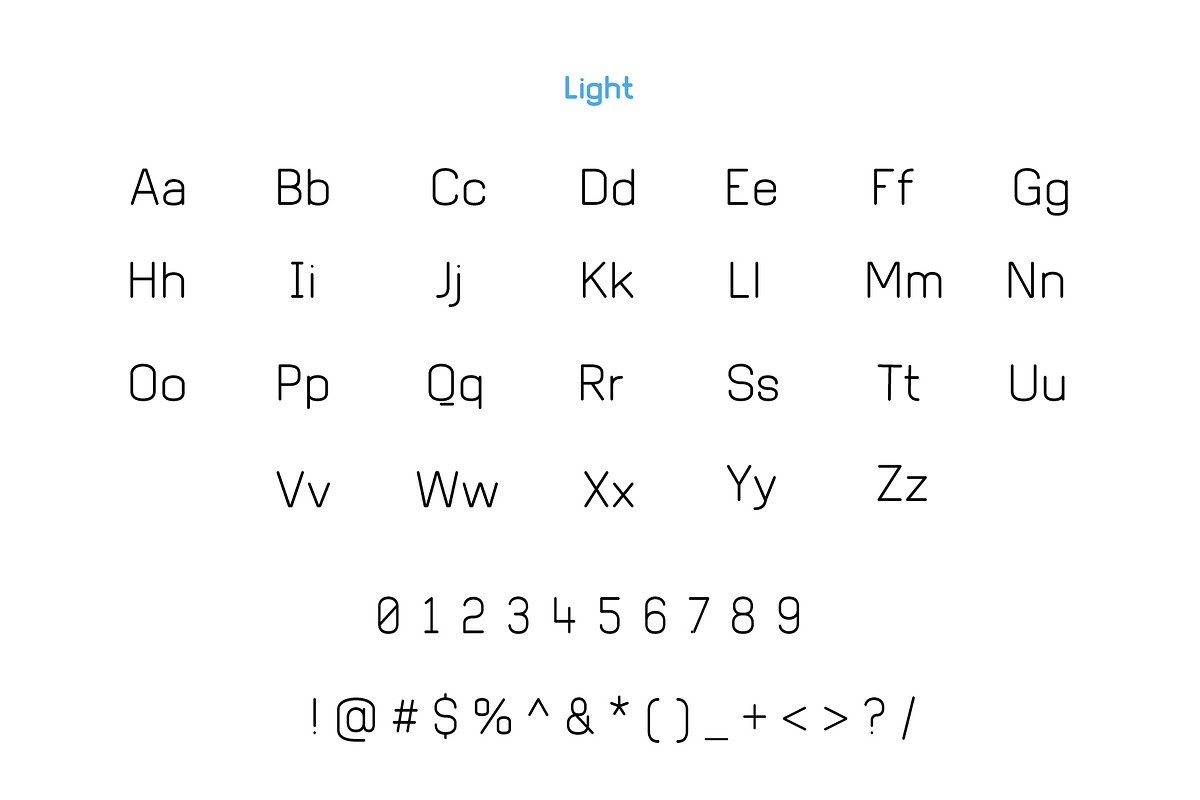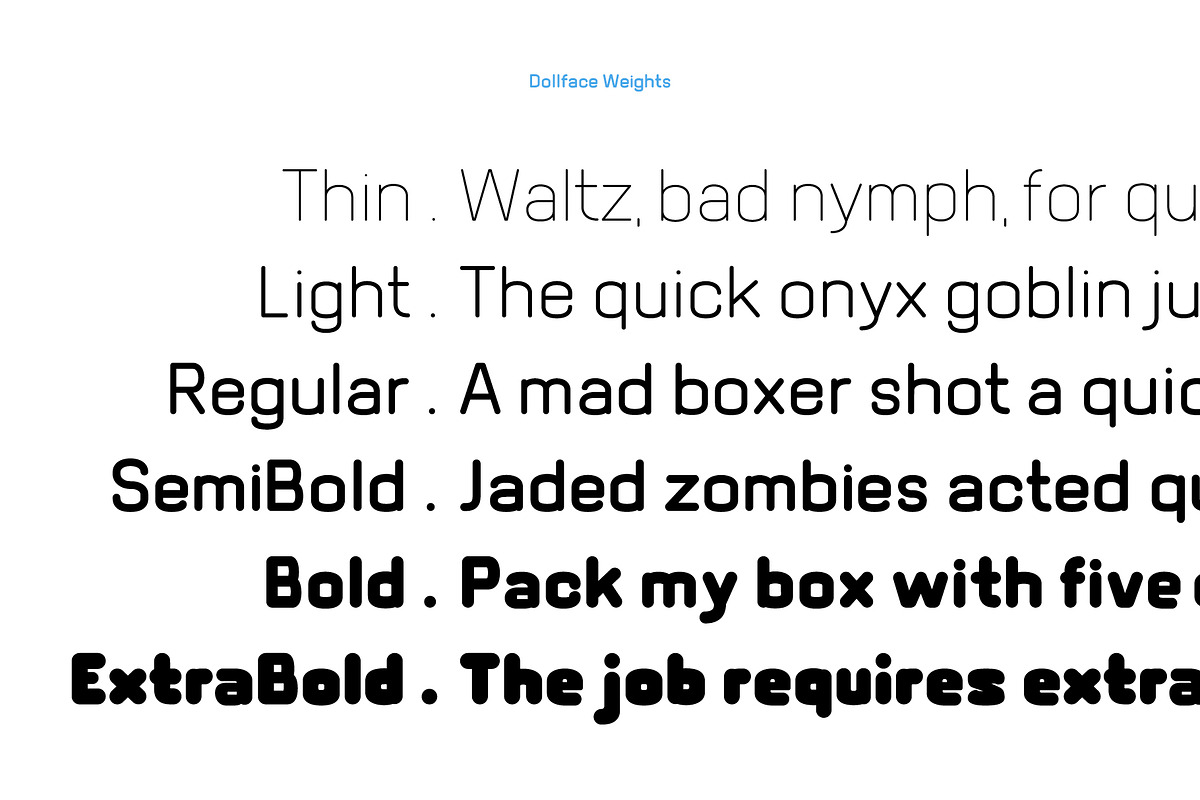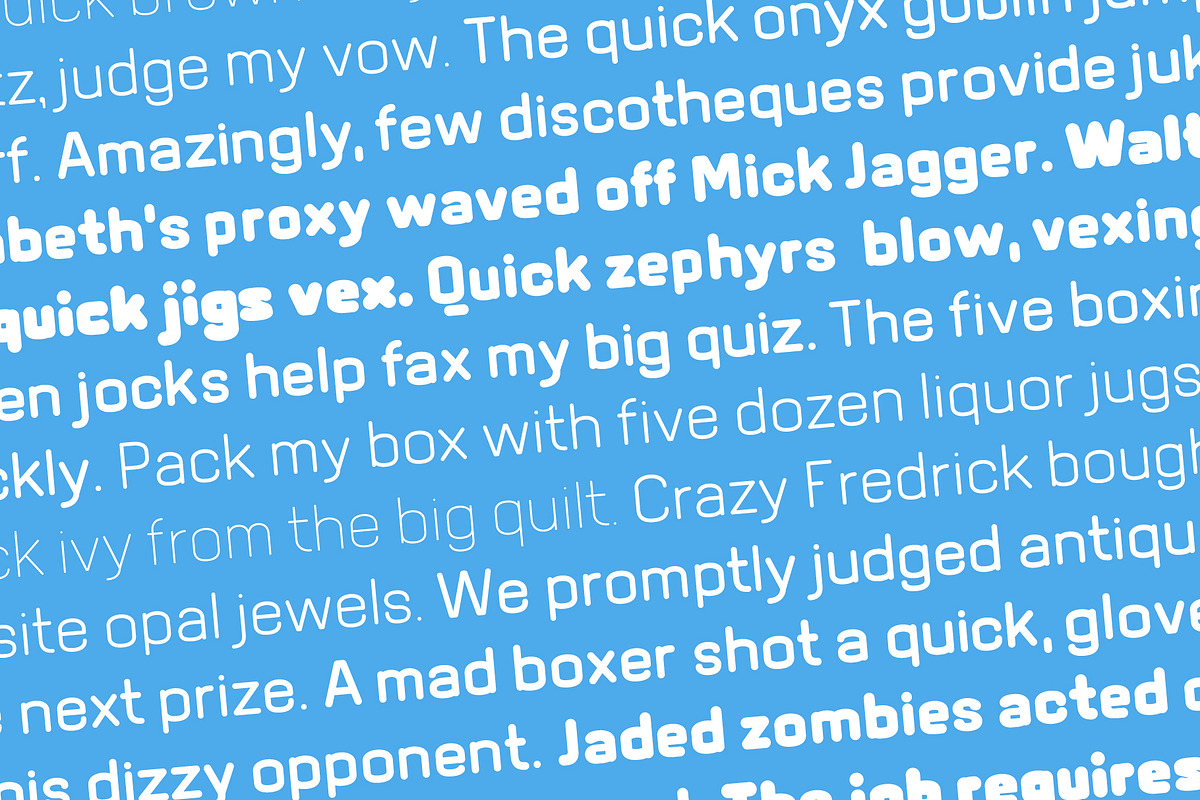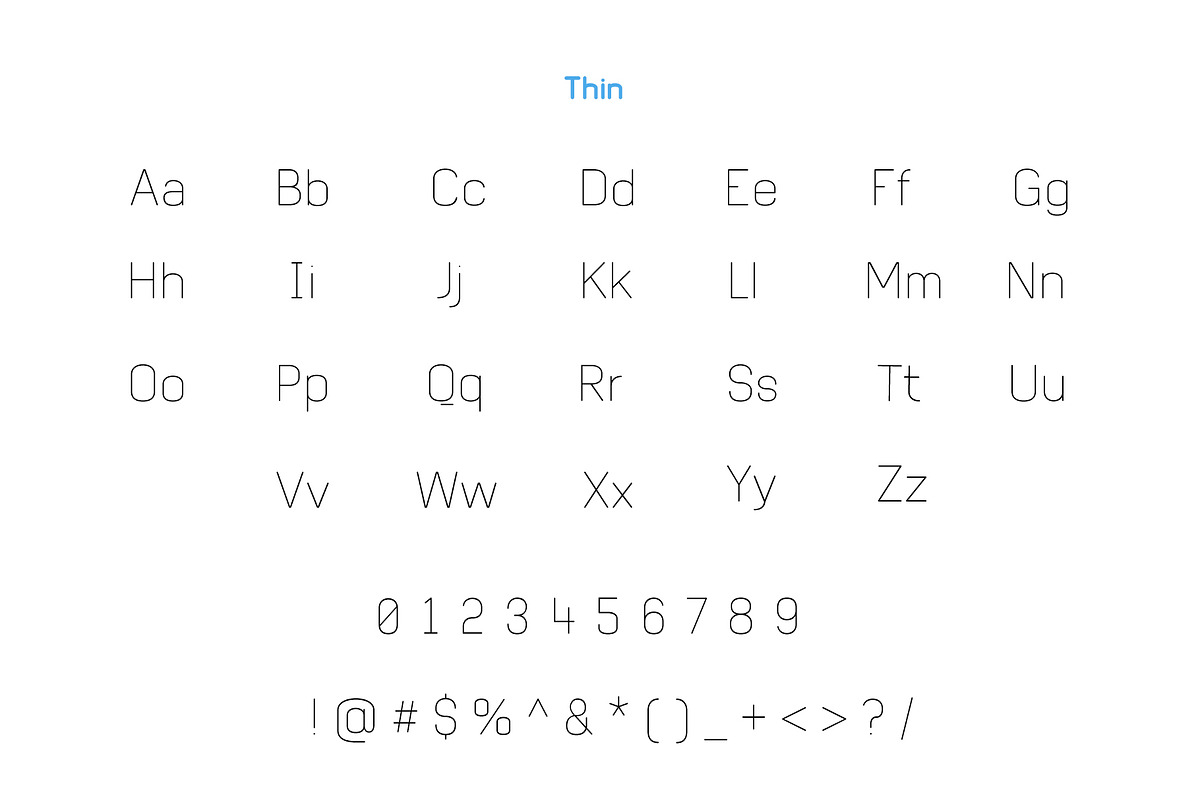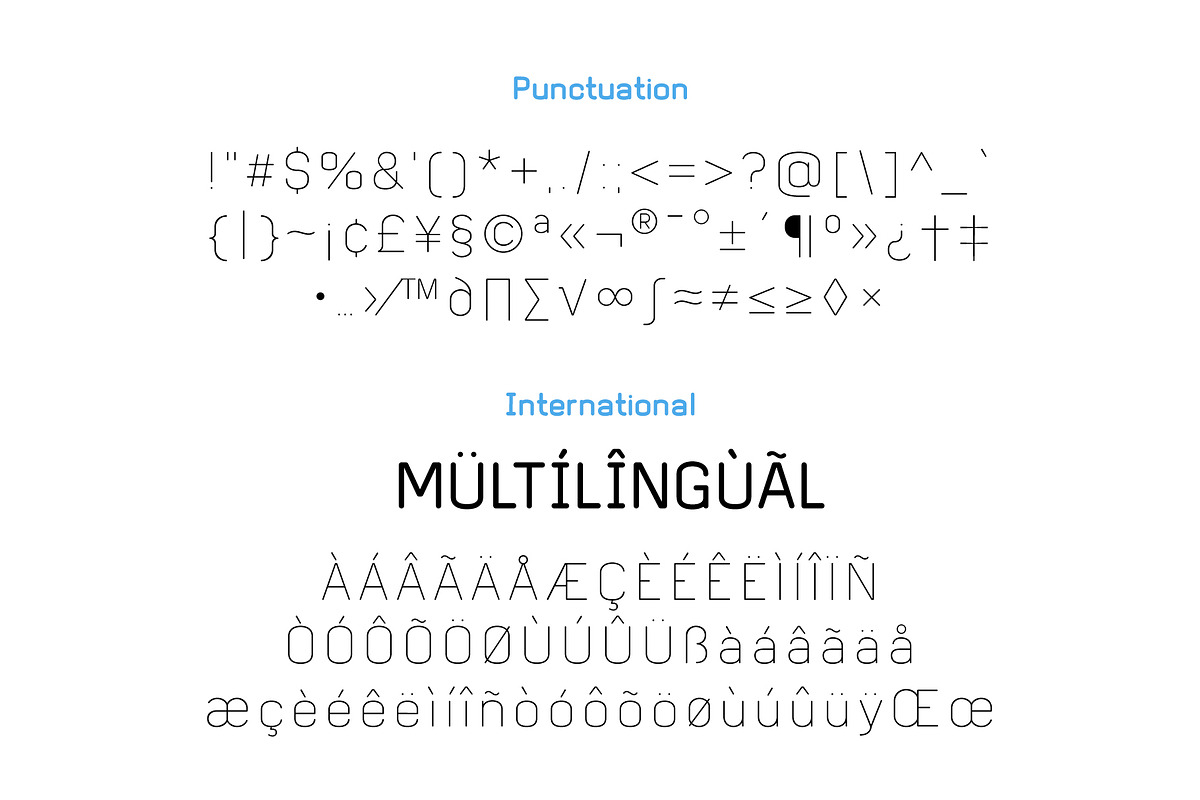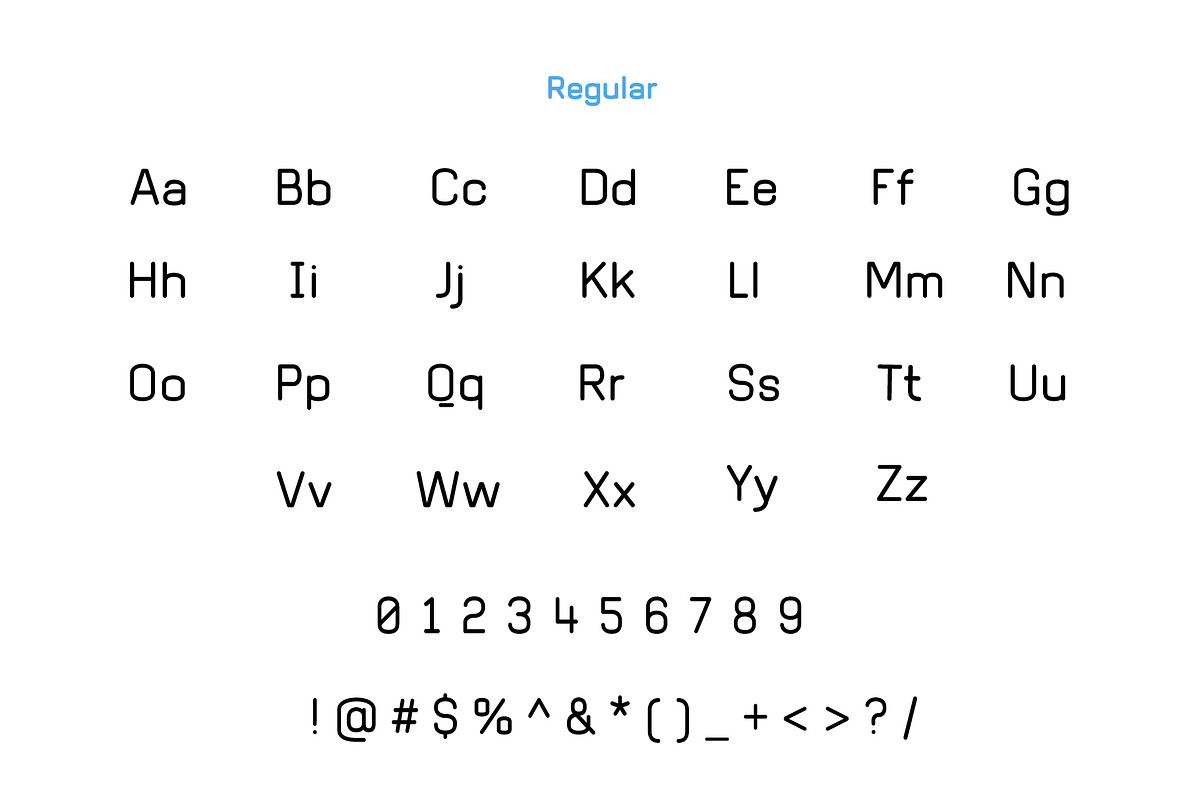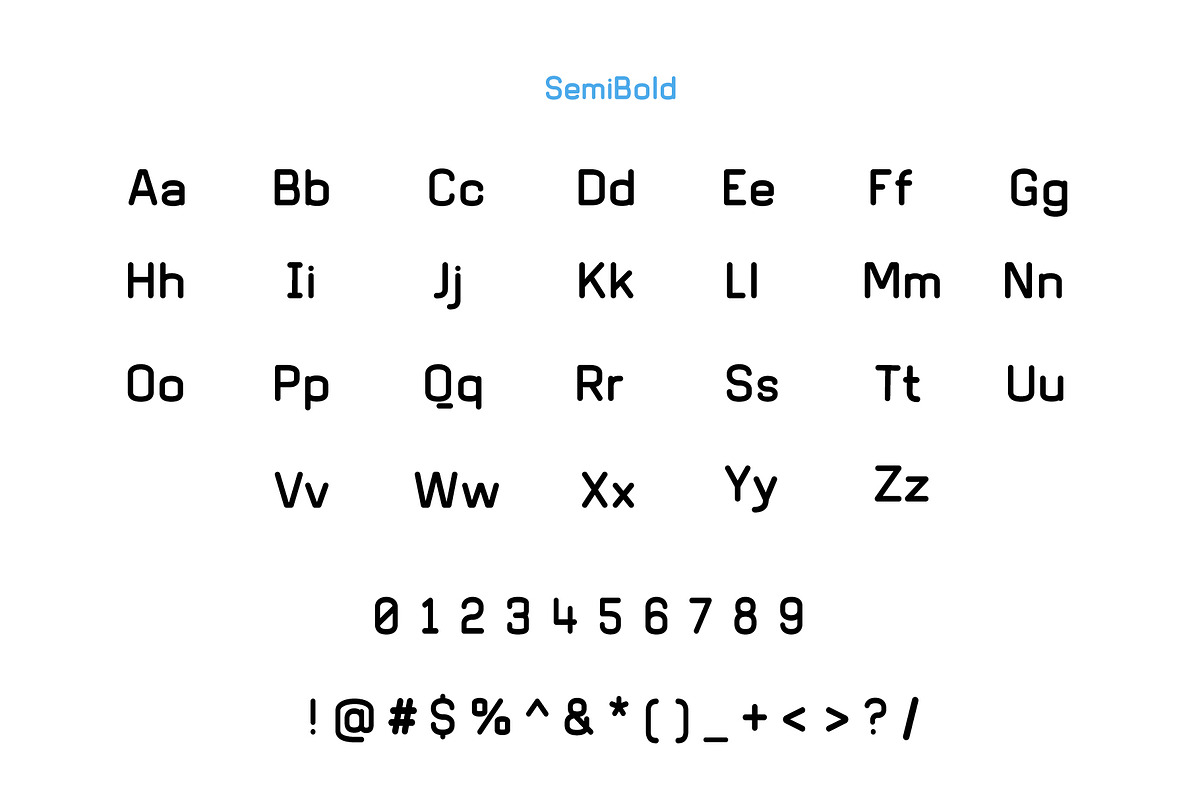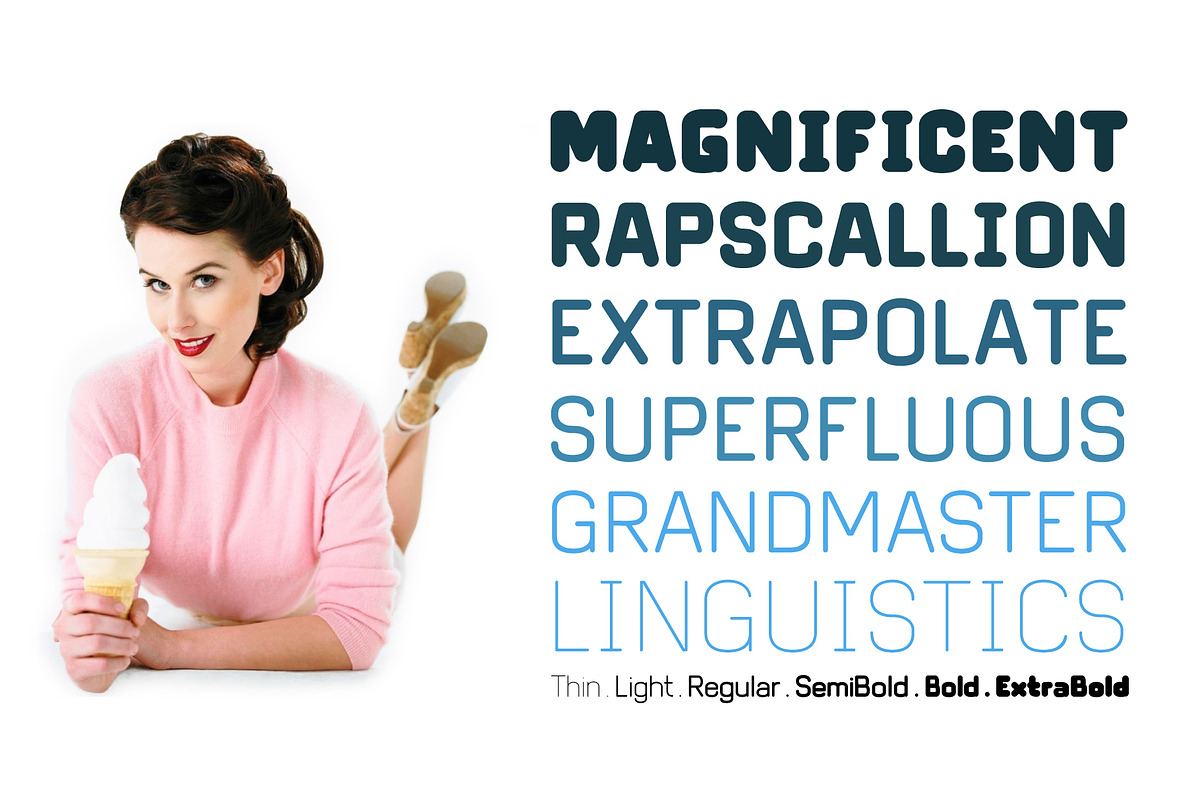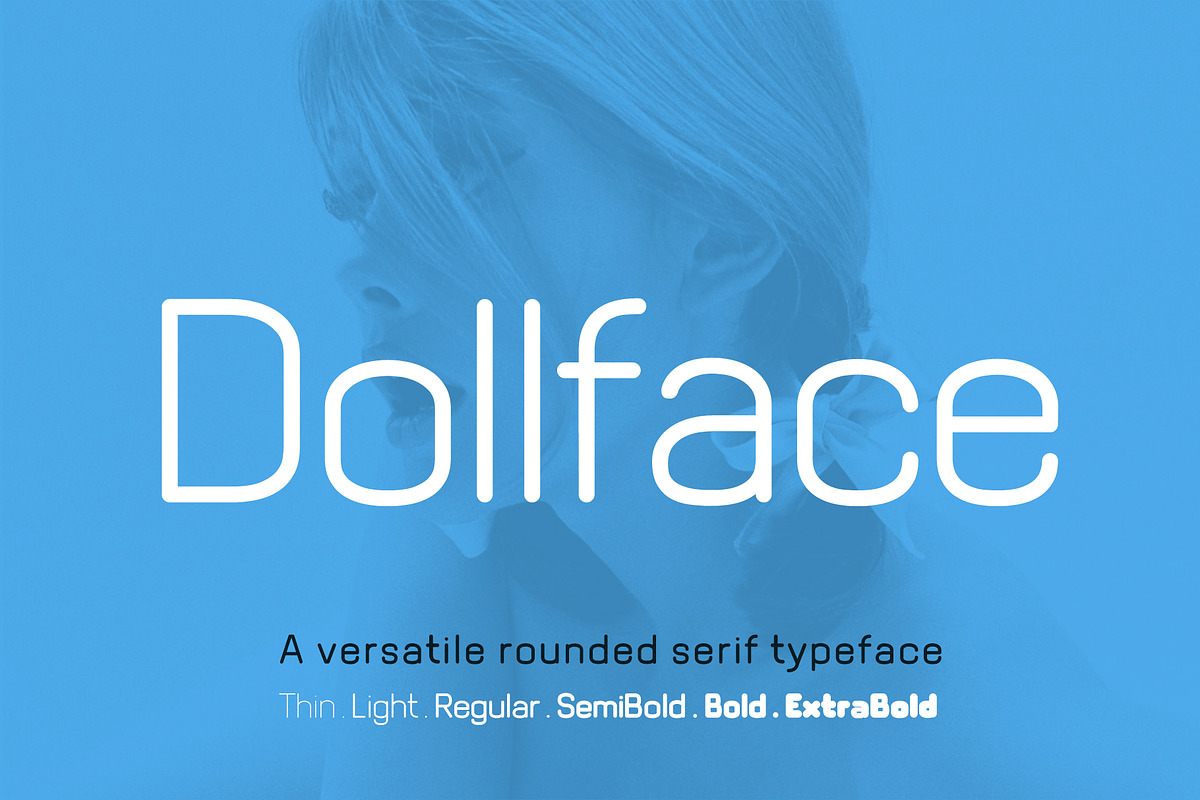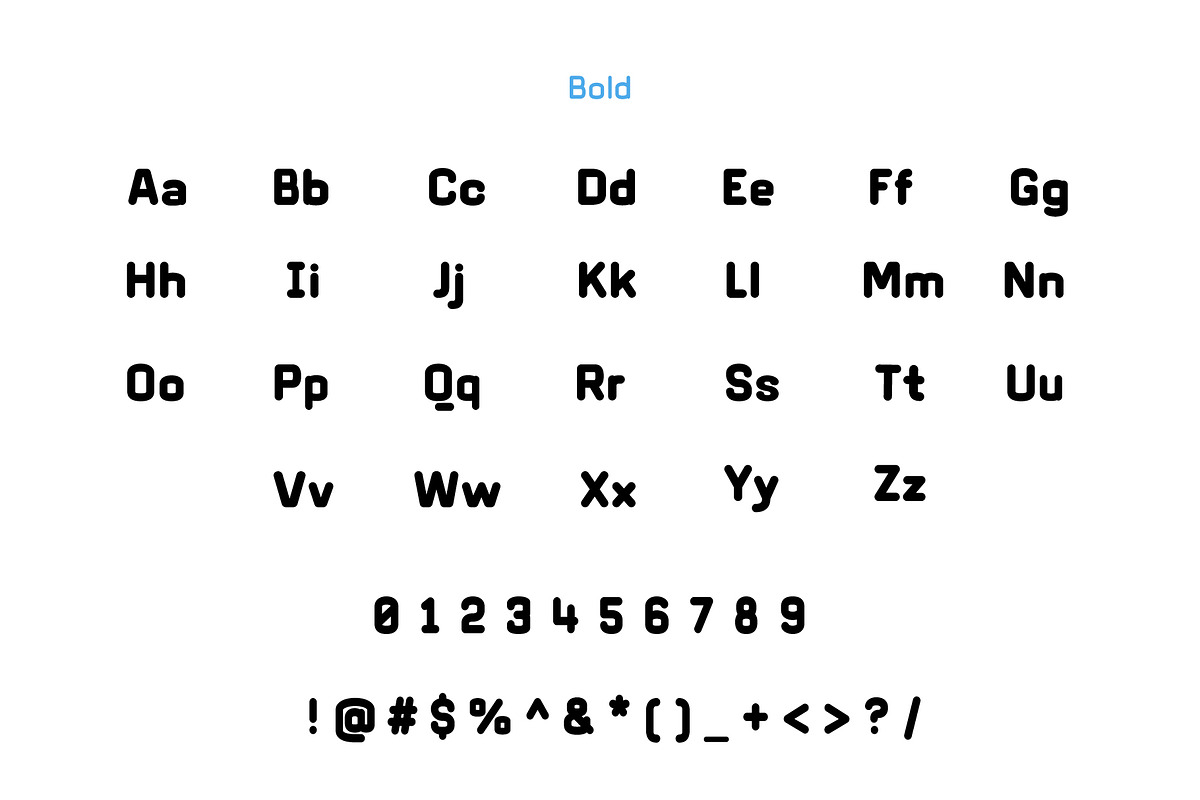
Dollface
A modern rounded serif typeface with 5 variations from Light to Extra bold. Taller than your average round font Dollface focuses on geometric ovals versus which delivers an elegant look and feel. Can easily be used in text-heavy areas or for headline or display purposes.